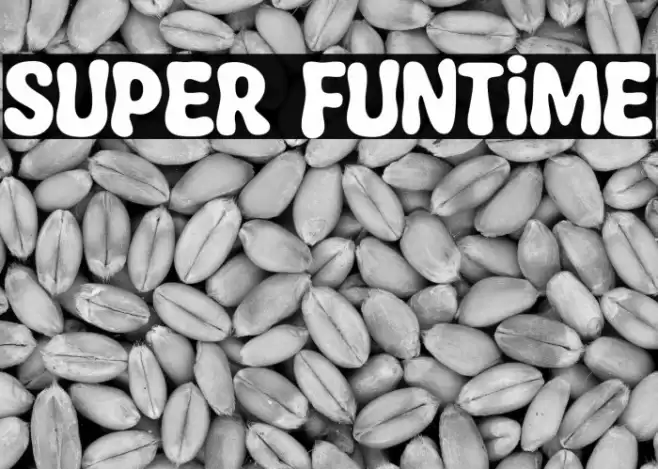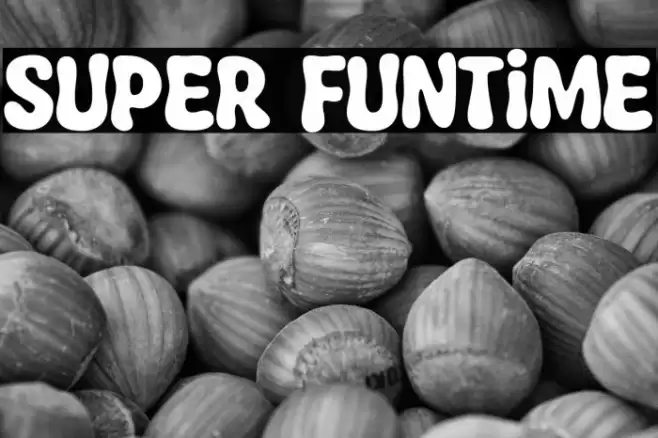
Super Funtime Font
Super Funtime Description
This playful and bold font features rounded, bubbly characters that exude a sense of fun and whimsy. The letters are thick and have a consistent weight throughout, giving them a strong presence on the page. The rounded edges and slightly irregular shapes contribute to a casual and approachable feel, making it ideal for projects that aim to convey a lighthearted or youthful vibe. The numbers and special characters maintain the same playful style, ensuring a cohesive look across all text elements. This font is perfect for creating eye-catching headlines, posters, or branding materials that require a touch of personality and flair.
| Overall Style | Playful |
| Proposed Projects | Ideal for children's books, playful branding, party invitations, and eye-catching posters. |